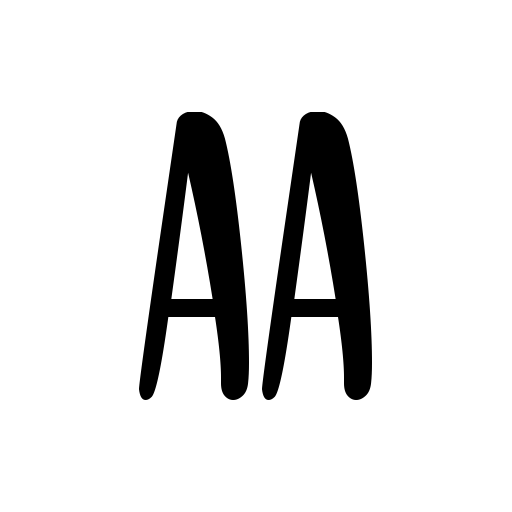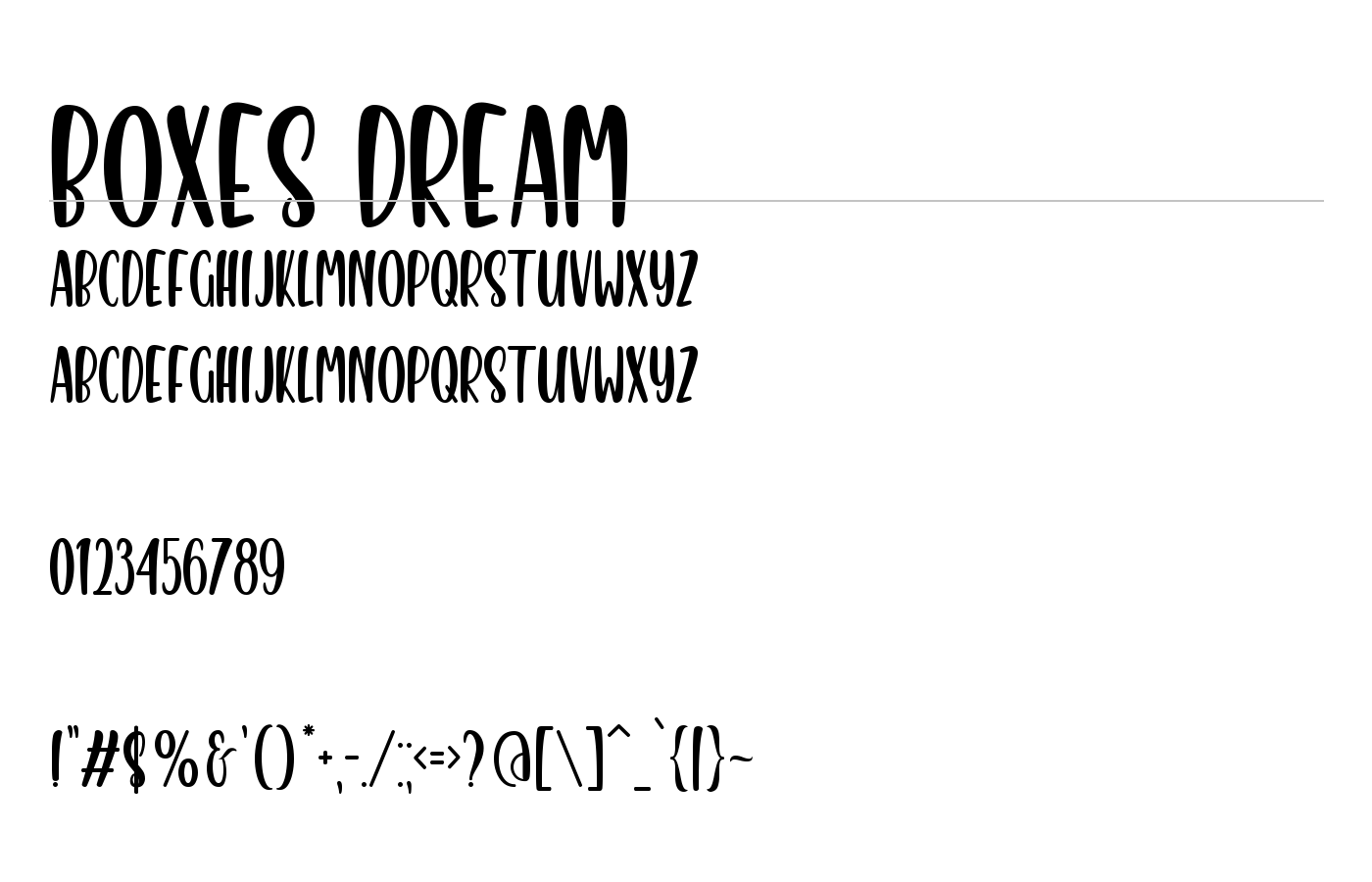
Boxes Dream Font is a tall, narrow, playful handwritten sans serif with a quirky and friendly personality. Its elongated letterforms and uneven strokes give it a casual, whimsical feel, making it ideal for creative projects, children's designs, and informal branding. This font works best in headlines, posters, and packaging where a fun and approachable vibe is desired.
Boxes Dream Font
About Boxes Dream Font